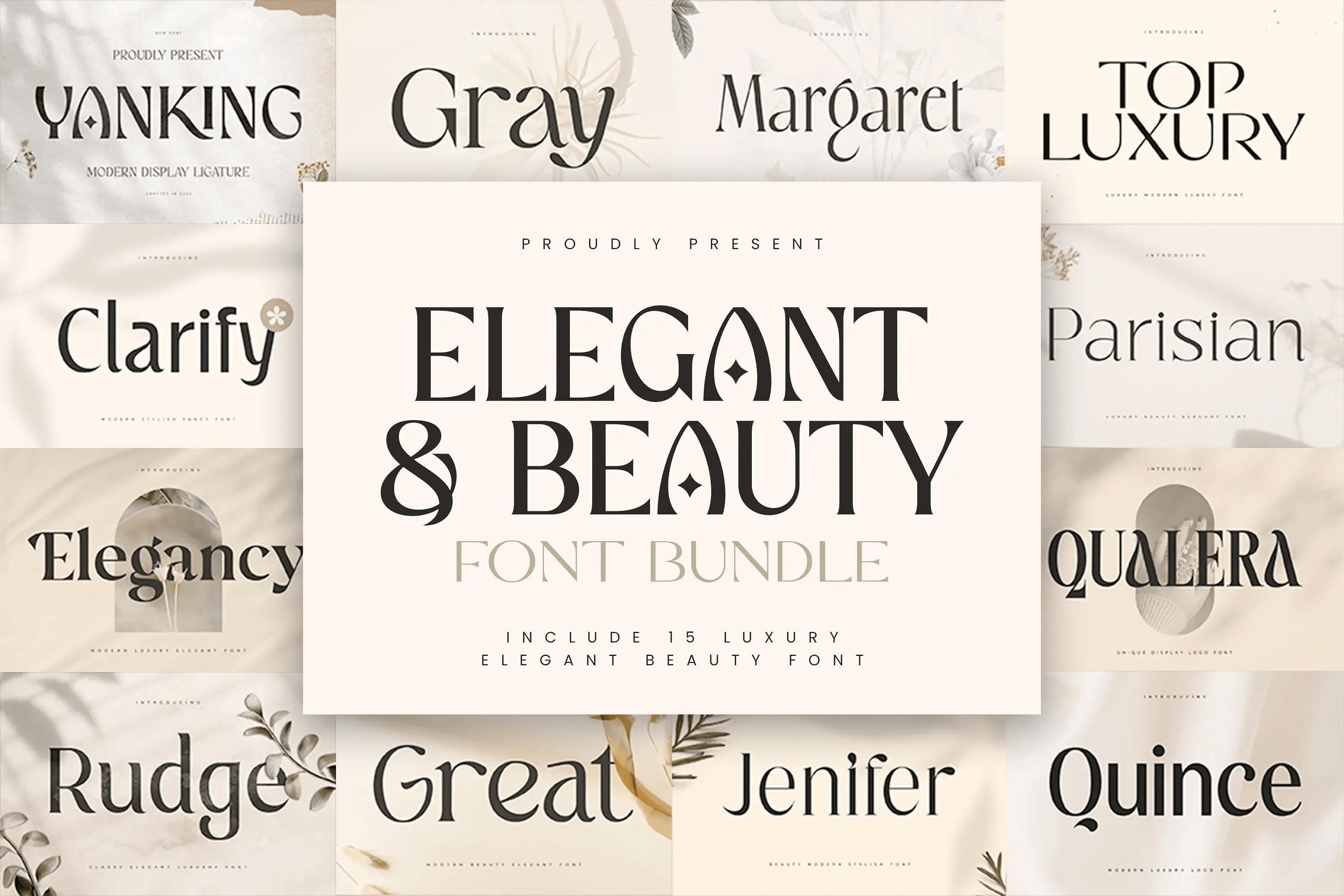
15 in 1 Luxury Elegant Beauty Font Bundle
15 in 1 Luxury Elegant Beauty Font Bundle.
Based on our eesigner who works for a lot of companies, we often are requested to design a luxury font in a elegant style but with a beauty feels. So, we try to brainstorming and create some of unique font to make the idea is going out with ready to use easily. This is perfect for branding and your design projects. You will get luxury, elegant and certainly beauty to make your branding or design projects more standout with this font.
- Uppercase and lowercase letters
- Multilingual Characters
- Numerals & punctuations
Anymore
Clarify
Elegancy
Geranium
Gray
Great
Jenifer
Margaret
PARISIAN
Qualera
Quince
Rafeny
Rudge
TOP LUXURY
Yanking